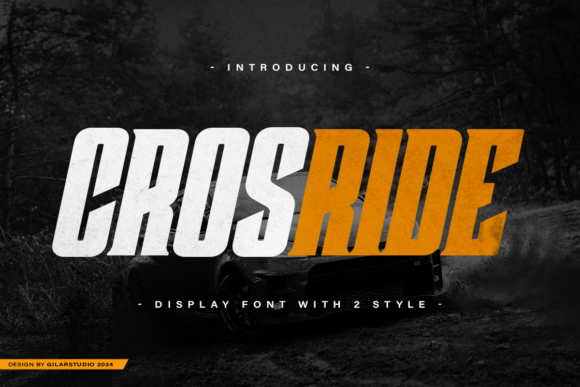
Crosride Font: The Ultimate Choice for Sports-Themed Designs
In the world of typography, fonts play a crucial role in conveying the tone and personality of a brand or design. For sports-themed designs, a font that exudes power, speed, and dynamism is essential. This is where Crosride Font comes into play – a bold and condensed display font inspired by the thrill of sports. In this article, we’ll explore the features, benefits, and uses of Crosride Font, and why it’s the ideal choice for creating stunning sports-themed designs.
What is Crosride Font?
Crosride Font is a bold and condensed display font designed specifically for sports-themed designs. Its inspiration comes from the fast-paced world of sports, making it perfect for creating titles, logos, and monograms for car racing, running, cycling, and other dynamic sports-related projects. The font’s design is characterized by its bold and condensed structure, which gives it a sense of power and speed.
Key Features of Crosride Font
- Bold and Condensed Design: Crosride Font features a bold and condensed design, making it perfect for creating eye-catching titles and logos.
- Sports-Inspired: The font’s inspiration comes from the world of sports, giving it a unique and dynamic feel.
- High Legibility: Despite its bold and condensed design, Crosride Font maintains high legibility, even at smaller sizes.
- Versatile: Crosride Font can be used for a variety of sports-themed designs, including car racing, running, cycling, and more.
Benefits of Using Crosride Font
Using Crosride Font for your sports-themed designs comes with several benefits. Firstly, its bold and condensed design makes it perfect for creating eye-catching titles and logos that grab attention. Secondly, its sports-inspired design gives your projects a unique and dynamic feel that resonates with sports enthusiasts. Finally, Crosride Font’s high legibility ensures that your message is conveyed clearly, even at smaller sizes.
Use Cases for Crosride Font
Crosride Font is ideal for a variety of sports-themed designs, including:
- Car Racing Sports Titles: Crosride Font is perfect for creating bold and eye-catching titles for car racing events, tournaments, and championships.
- Running Matches: The font’s dynamic design makes it suitable for creating titles and logos for running events, marathons, and other athletic competitions.
- Cycling Logos: Crosride Font’s bold and condensed design makes it ideal for creating logos and titles for cycling teams, events, and championships.
- Automotive Game Logos: The font’s sports-inspired design makes it perfect for creating logos and titles for automotive games, racing simulations, and other sports games.
- Monograms and Typography: Crosride Font can also be used for creating monograms, typographic quotes, and other text-based designs that require a bold and dynamic feel.
Design Philosophy Behind Crosride Font
Crosride Font was designed with a specific philosophy in mind – to create a font that embodies the spirit of sports. The designers aimed to create a font that is not only bold and dynamic but also highly legible and versatile. The result is a font that is both stylish and functional, making it perfect for a wide range of sports-themed designs.
Comparison with Other Fonts
Crosride Font stands out from other fonts in its category due to its unique design and features. While other fonts may be bold and condensed, Crosride Font’s sports-inspired design gives it a distinct edge. Additionally, Crosride Font’s high legibility and versatility make it a more practical choice for designers who need a font that can be used across various projects.
In conclusion, Crosride Font is a bold and condensed display font that is specifically designed for sports-themed designs. Its unique design, high legibility, and versatility make it the ideal choice for creating stunning titles, logos, and monograms for car racing, running, cycling, and other dynamic sports-related projects. Whether you’re a designer, a marketer, or a sports enthusiast, Crosride Font is a great addition to your typography arsenal.
Frequently Asked Questions (FAQs)
- What is Crosride Font?: Crosride Font is a bold and condensed display font inspired by sports.
- What is Crosride Font used for?: Crosride Font is ideal for sports-themed designs, including car racing sports titles, running matches, cycling logos, automotive game logos, and monograms.
- Is Crosride Font legible?: Yes, Crosride Font maintains high legibility even at smaller sizes.